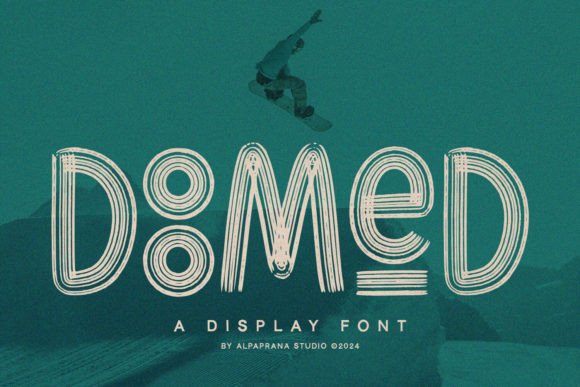
Introducing Doomed Font: The Fun Display Font to Elevate Your Creative Projects
Are you tired of using the same old fonts in your designs? Look no further! Doomed Font is here to shake things up and add a touch of fun to your creative projects. This exciting display font is perfect for designers, crafters, and anyone looking to make a statement with their typography.
What is Doomed Font?
Doomed Font is a unique and playful display font that is sure to grab attention. Its distinctive design makes it perfect for use in a variety of creative projects, from posters and flyers to social media graphics and website headers. With its bold and eye-catching style, Doomed Font is guaranteed to make your designs stand out from the crowd.
Key Features of Doomed Font
- Fun and playful design: Doomed Font has a quirky and charming personality that will add a touch of whimsy to your designs.
- Bold and eye-catching: This font is designed to grab attention and make a statement.
- Highly versatile: Use Doomed Font in a variety of creative projects, from print materials to digital graphics.
Benefits of Using Doomed Font
So why choose Doomed Font for your designs? Here are just a few benefits of using this fun display font:
- Adds a touch of personality: Doomed Font is the perfect way to add a bit of whimsy and charm to your designs.
- Grabs attention: This bold and eye-catching font is guaranteed to make your designs stand out.
- Versatile: Use Doomed Font in a variety of creative projects, from print materials to digital graphics.
Tips and Tricks for Getting the Most Out of Doomed Font
Here are a few tips and tricks for getting the most out of Doomed Font:
- Experiment with different font sizes: Try out different font sizes to find the perfect balance for your design.
- Play with color: Use Doomed Font in a variety of colors to add an extra touch of personality to your design.
- Combine with other fonts: Try pairing Doomed Font with other fonts to create a unique and eye-catching look.
Doomed is a fun display font. Add it to your creative ideas and enjoy the results!